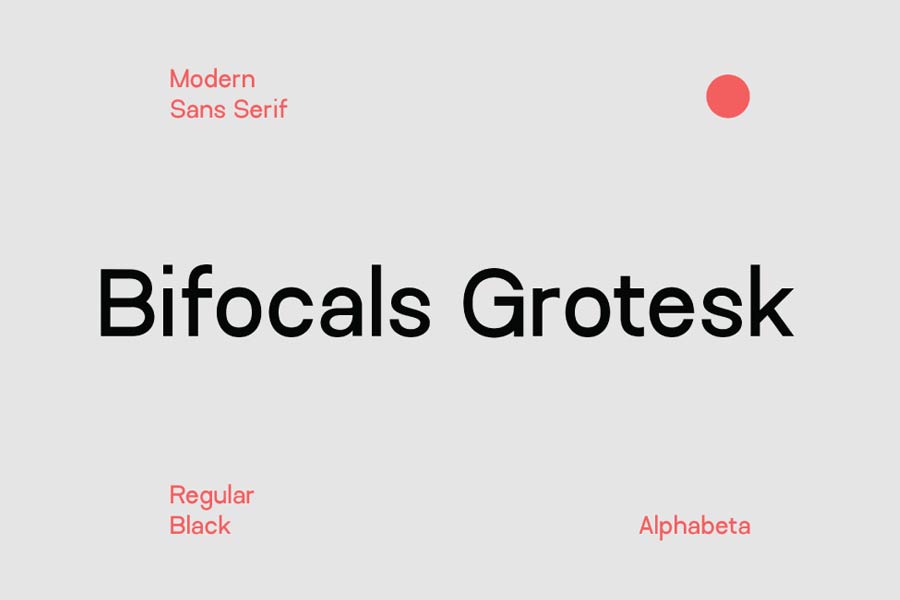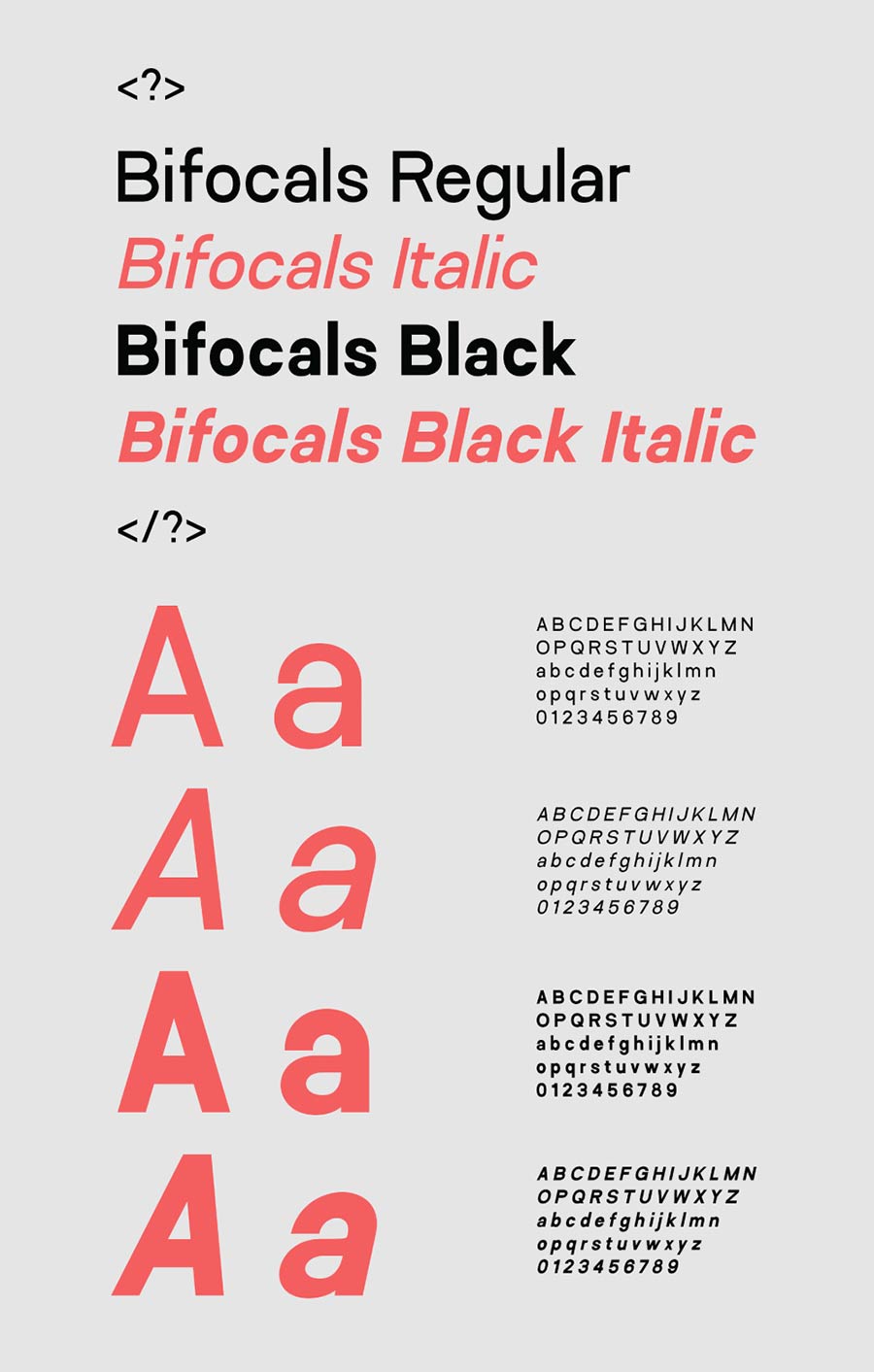
Bifocals Grotesk is a new artsy free sans serif font family and comes with 2 weights. It features geometrical letters that are both modern and minimal, perfect for typographic poster designs.
Bifocals Grotesk is designed by Habib Otang, it has both regular and bold weights each accompanied with italic version. You can use it for both personal and commercial projects.
- Designer: Habib Otang
- Styles: 4
- Category: Sans Serif